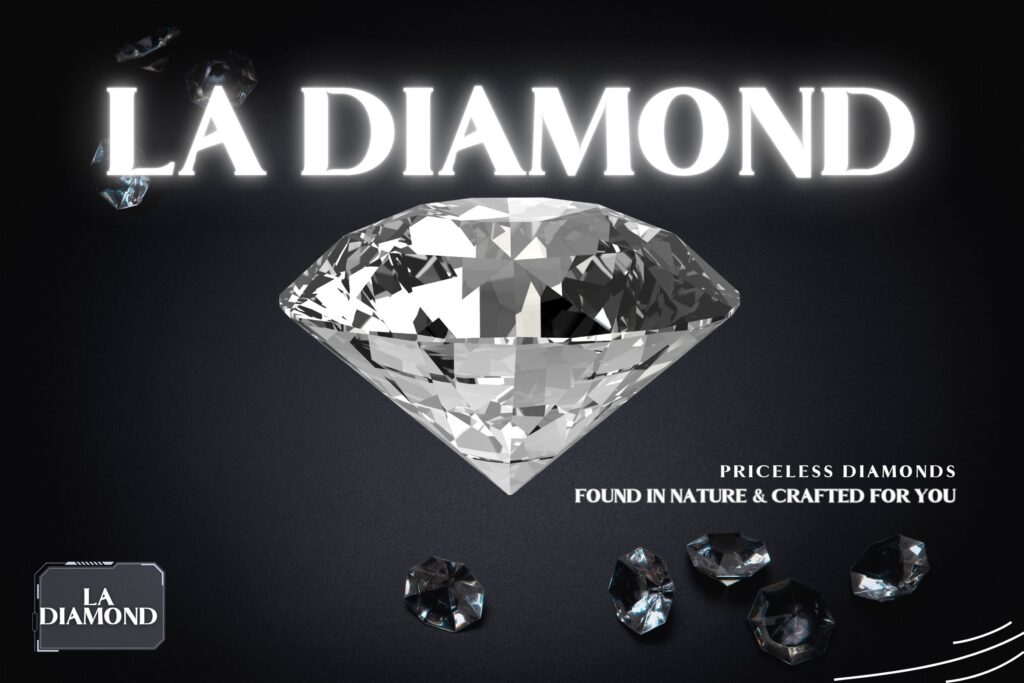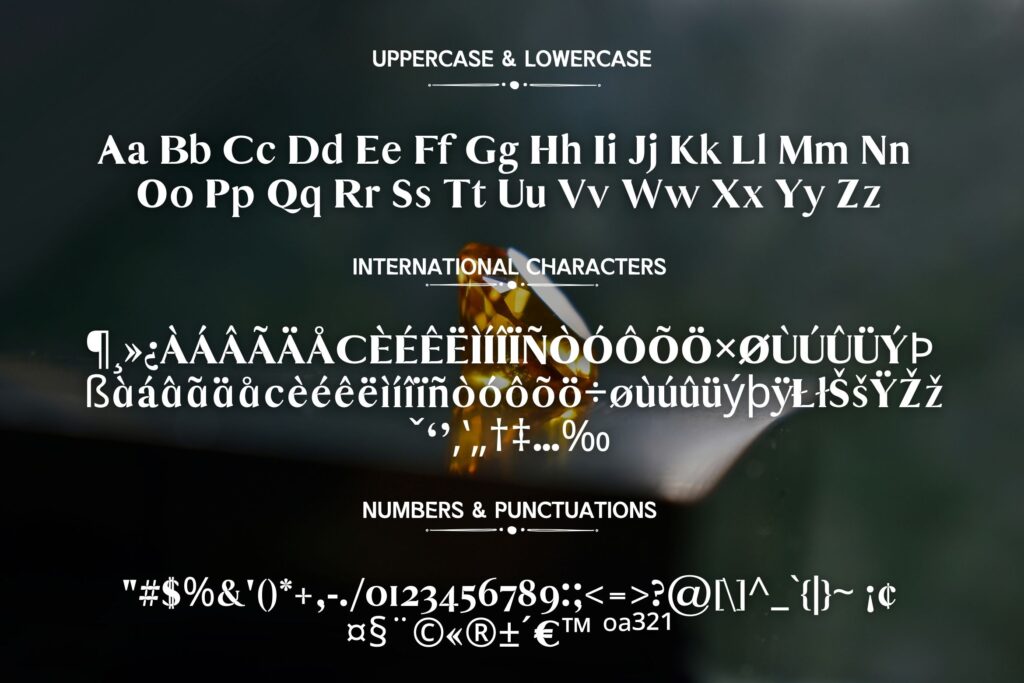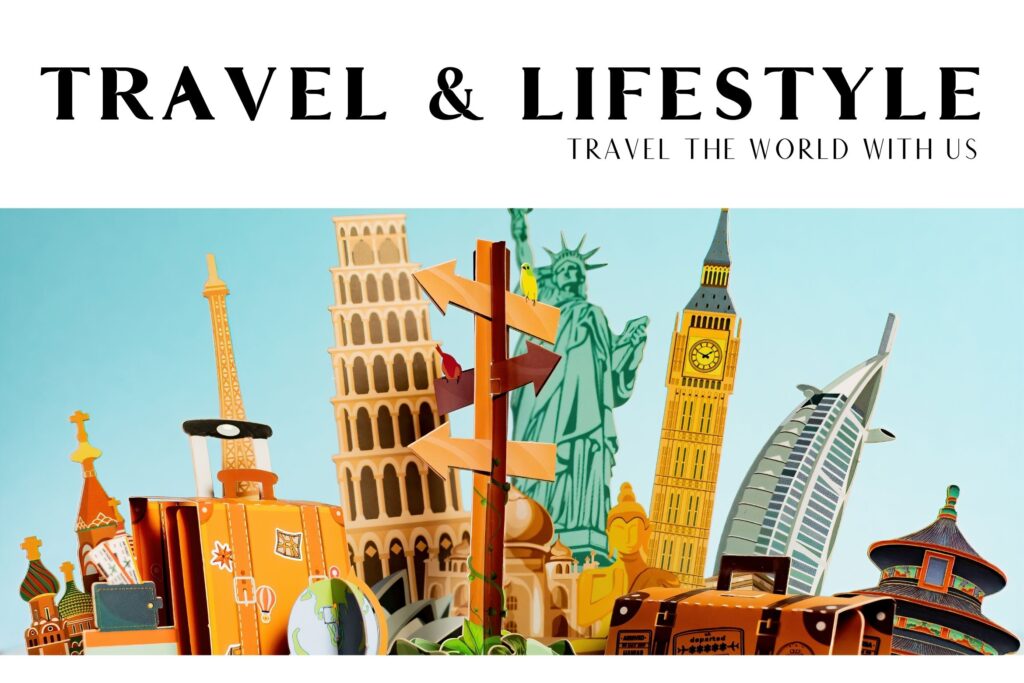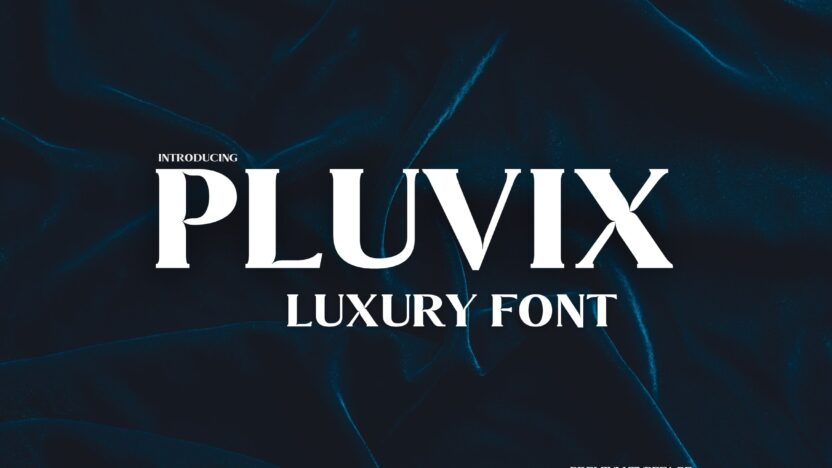
Looking for a font that adds a classy and elegant feel to your designs? Pluvix Luxury Font is perfect for you! It’s stylish, bold, and easy to use, making your projects look polished and professional. Whether you’re designing a logo, invitation, or social media post, this font gives your work a luxury touch without any effort.
Why You’ll Love Pluvix Luxury Font
- Beautiful Uppercase & Lowercase Letters
Create eye-catching titles or elegant paragraphs with a smooth, clean design. - Supports Multiple Languages
Need to design something in another language? No worries! Pluvix includes special characters and accents for international use. - Includes Numbers & Punctuation
From simple text to detailed layouts, Pluvix has all the numbers and symbols you’ll need.
Where to Use Pluvix
Pluvix is great for all kinds of projects! Here are some ideas:
- Logos – Make your brand stand out with a bold, stylish logo.
- Invitations – Perfect for weddings, birthdays, and formal events.
- Social Media Posts – Create posts that look elegant and get more attention.
- Posters & Flyers – Add a luxury feel to your promotional materials.
- Packaging – Give your small business products a premium look.
Make Your Designs Look Premium
With Pluvix Luxury Font, you don’t need expensive tools or complicated designs to create something special. This font gives your work a high-end look effortlessly. Whether you’re working on personal crafts or small business designs, Pluvix makes everything look better!